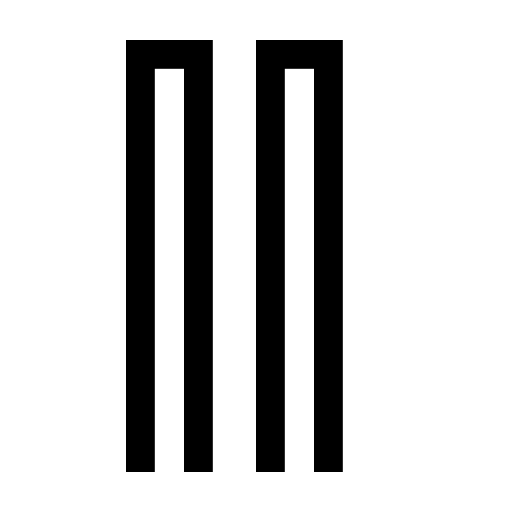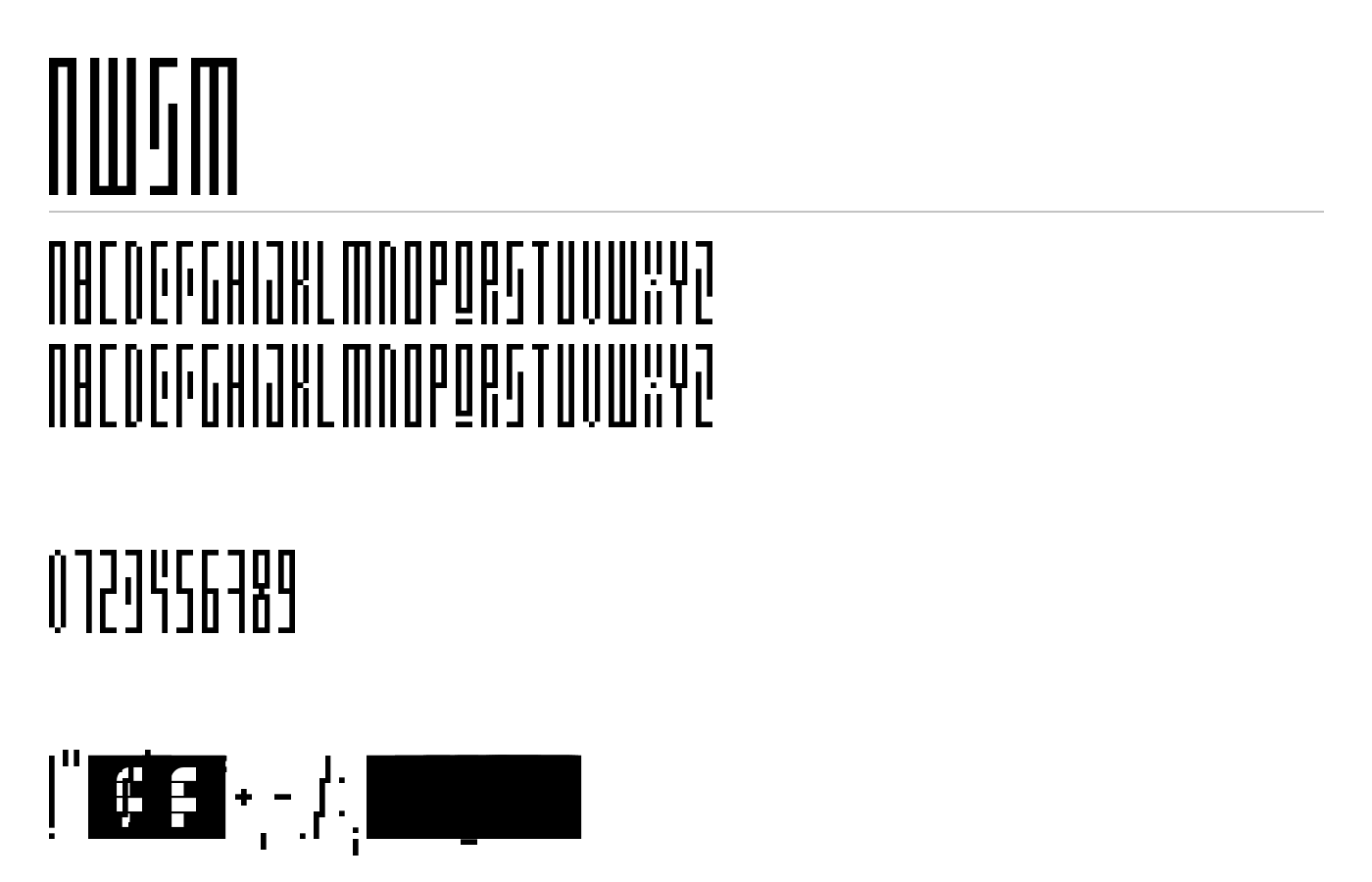
AWSM is a narrow, all-caps sans serif font characterized by its ultra-condensed letterforms and uniform stroke width, giving it a modern, digital aesthetic. Its tall, geometric shapes and sharp corners create a futuristic, tech-inspired vibe ideal for eye-catching headlines, logos, or display use where clean, minimalist impact is needed. This font works well for brands wanting a sleek, contemporary look with a distinctive, high-tech edge.
AWSM Font
About AWSM Font